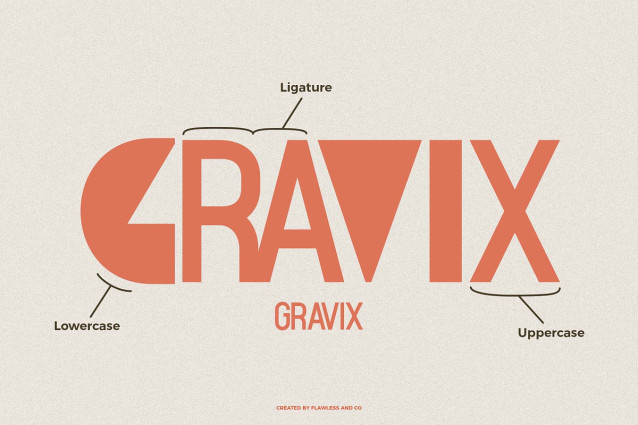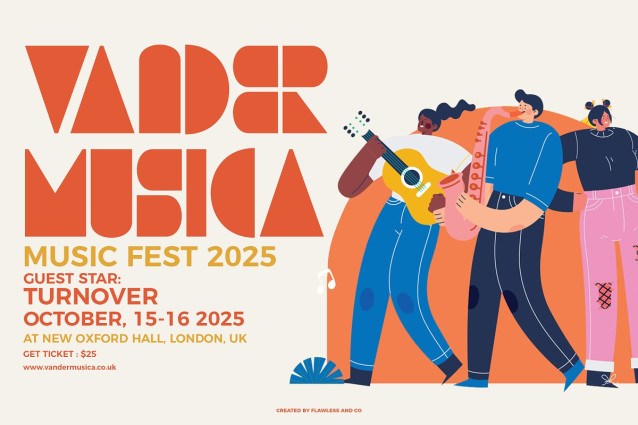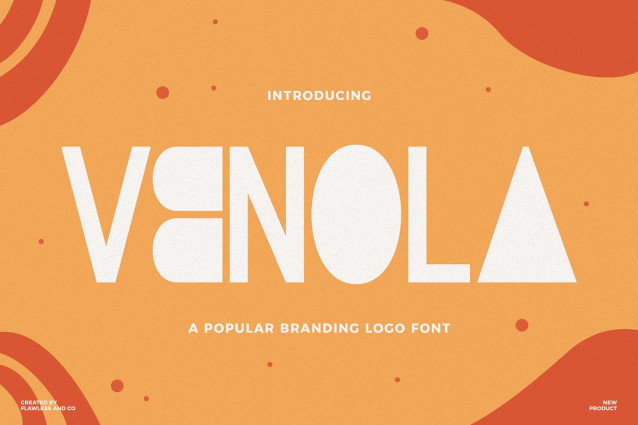
Venola Font
Venola Font is a sophisticated branding logo font that combines modern elegance with timeless simplicity. Designed with smooth curves and refined proportions, Venola is perfect for crafting high-end logos, brand identities, product packaging, and editorial designs. Its sleek and versatile character makes it an ideal choice for businesses aiming for a distinctive and professional look.
Make your brand stand out with the effortless charm of Venola. Whether you’re designing a standout logo, premium packaging, modern website, or elevated social media content, Venola is ready to bring bold clarity and timeless sophistication to your brand visuals.